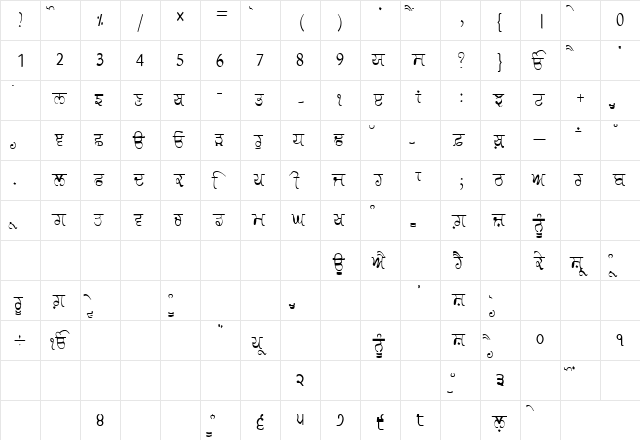
GurmukhiLys 030 Thin Normal
Design Context for GurmukhiLys 030 Thin Typeface
GurmukhiLys 030 Thin offers clean, dependable letterforms without strong stylistic allegiance, making it a practical choice for designers who need flexibility. Its slender proportions lend an understated elegance to any composition.